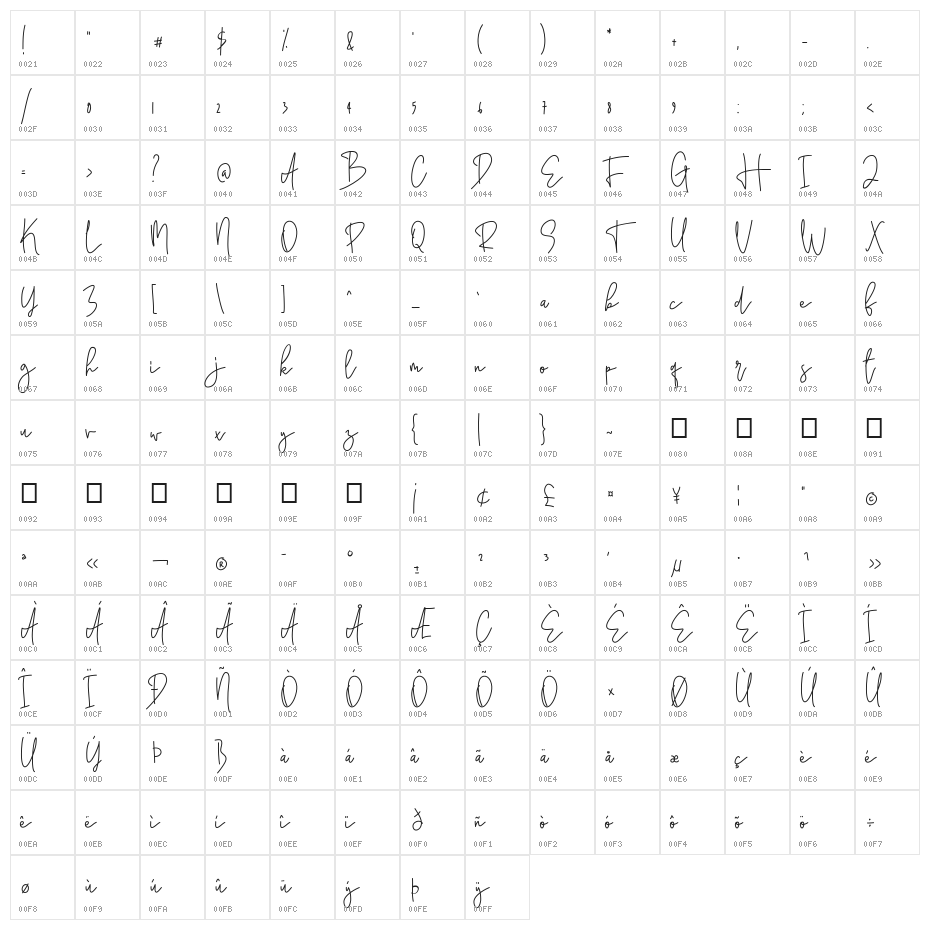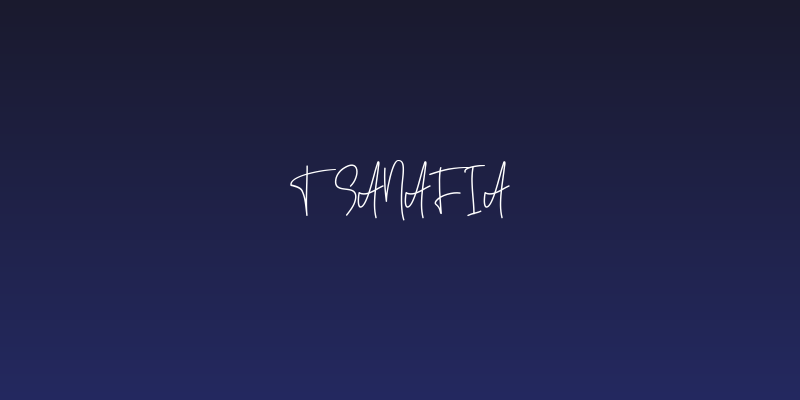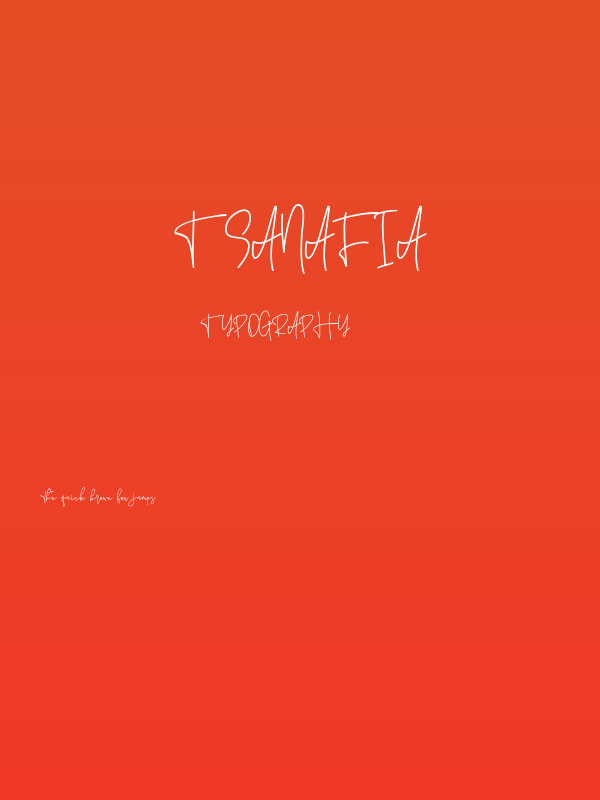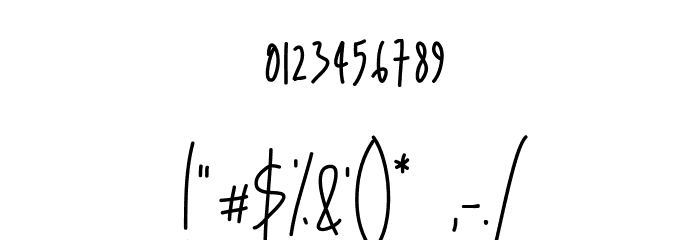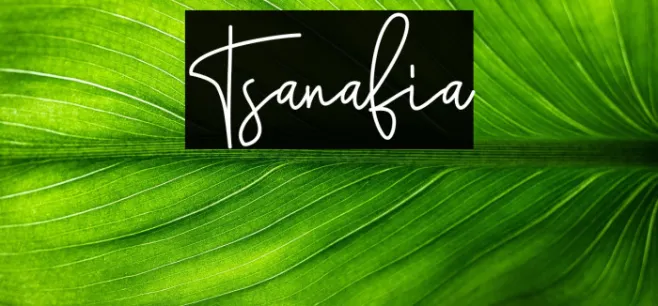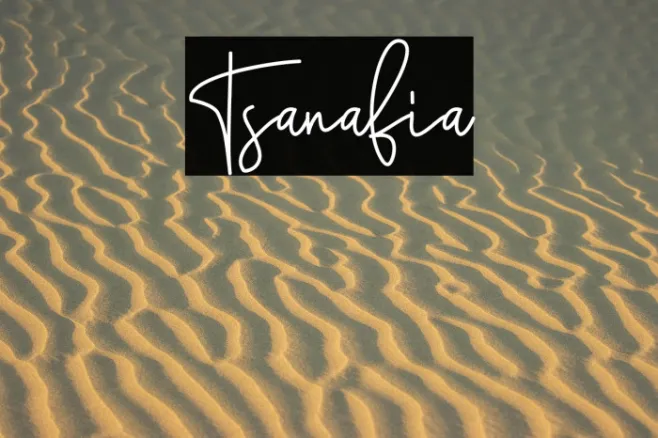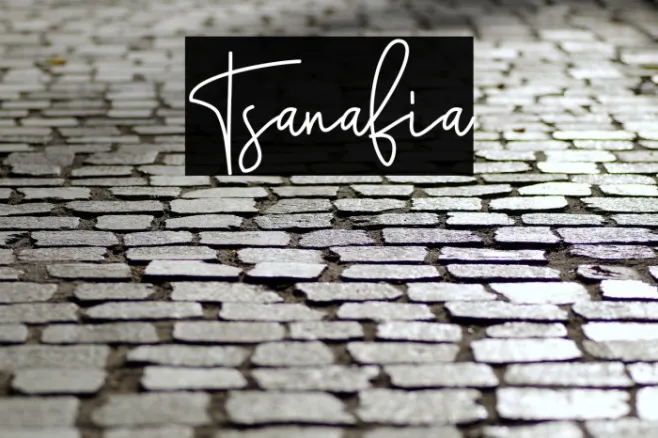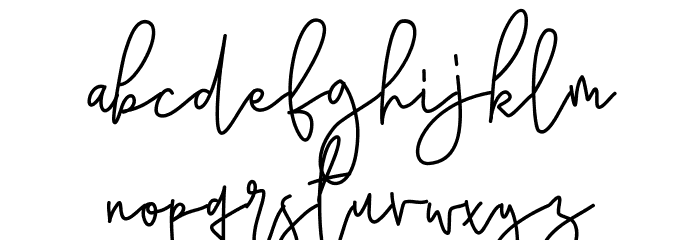
Tsanafia Font
Tsanafia Description
This font features a lively and expressive handwritten style, characterized by its fluid and dynamic strokes. The uppercase letters exhibit a playful and casual aesthetic, with varying line thickness that adds a sense of movement and energy. The lowercase letters maintain a consistent flow, enhancing the handwritten feel. Numbers and special characters are crafted with the same attention to detail, ensuring a cohesive look throughout. The overall design is informal yet stylish, making it suitable for projects that require a personal touch. The font's unique character is perfect for creative designs, adding a sense of individuality and flair.